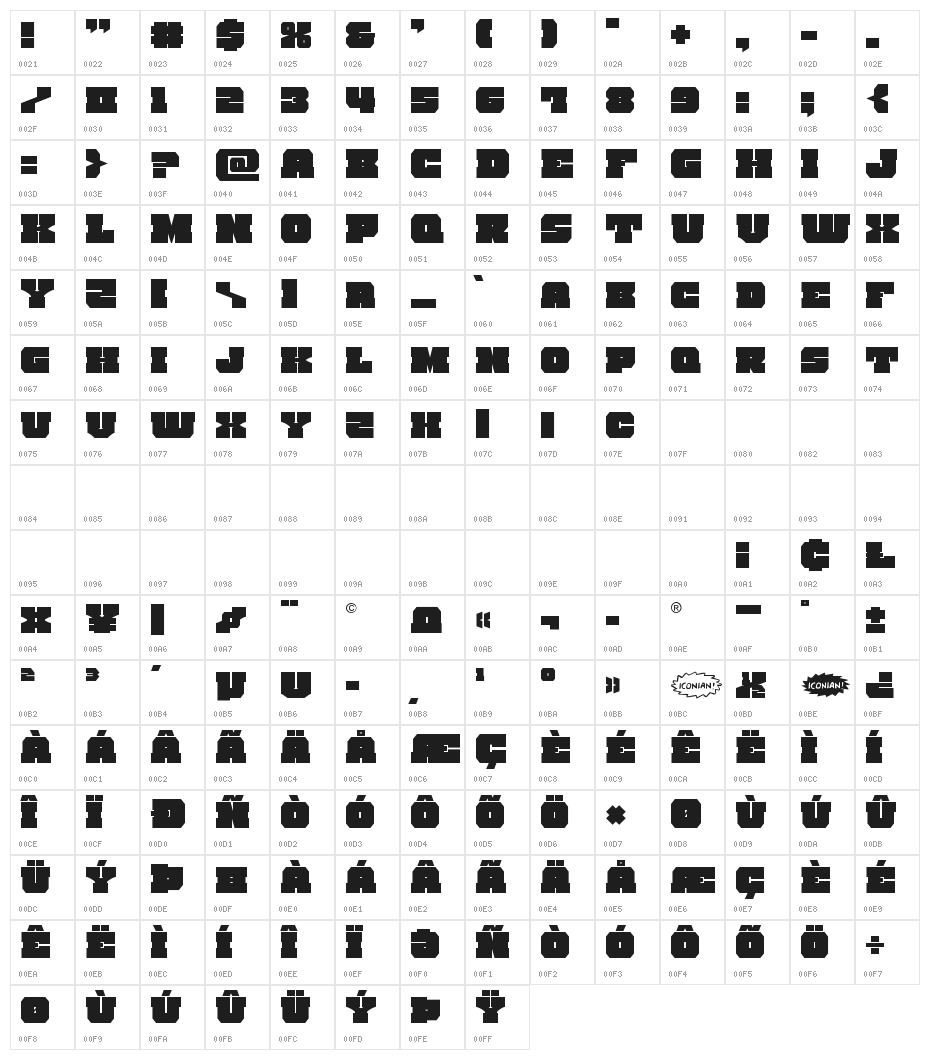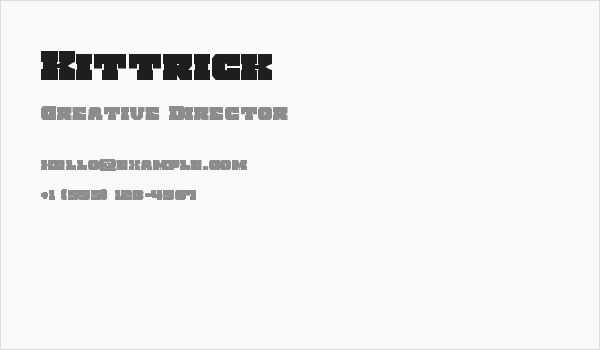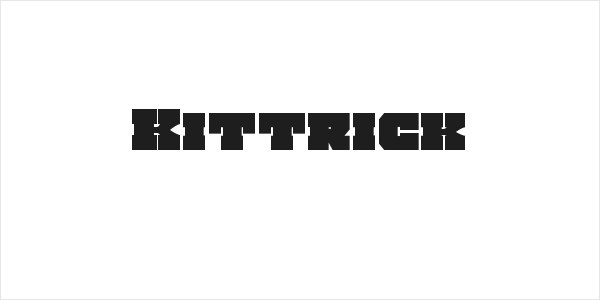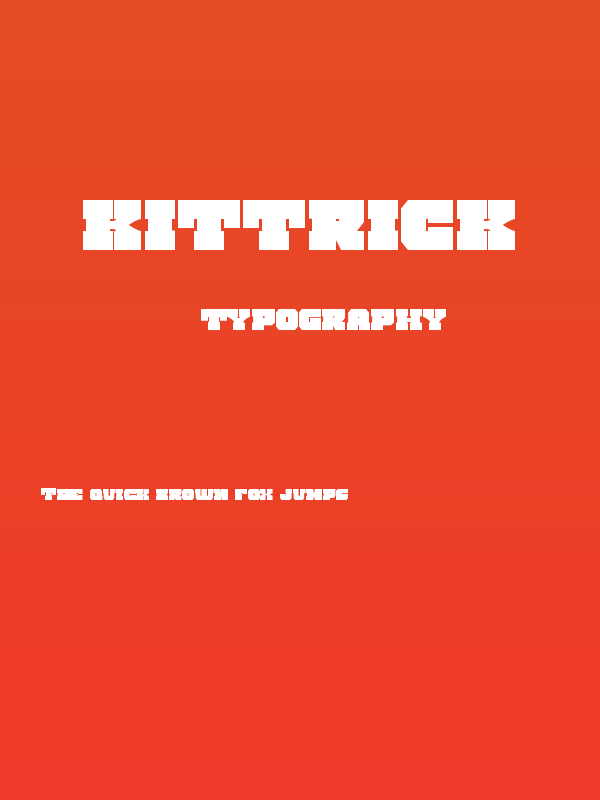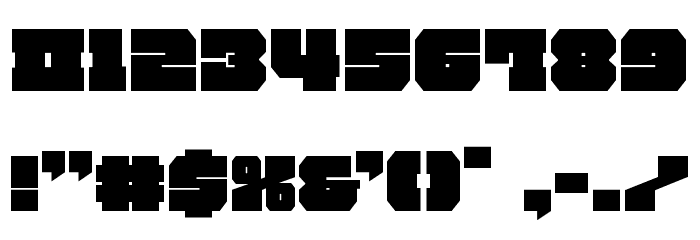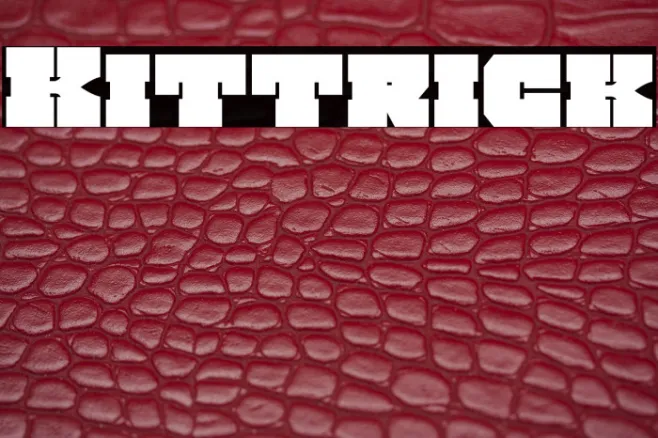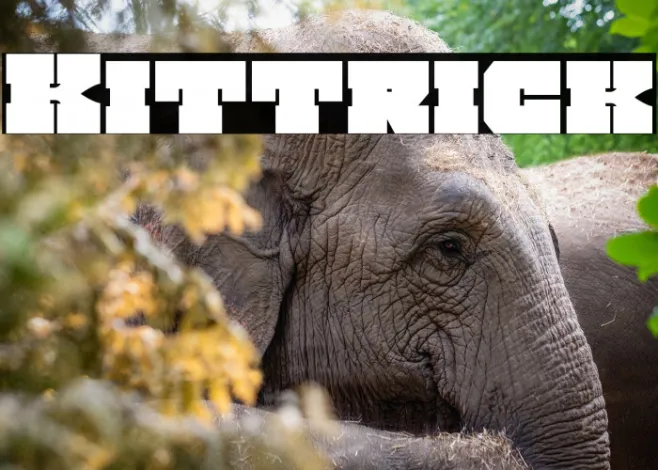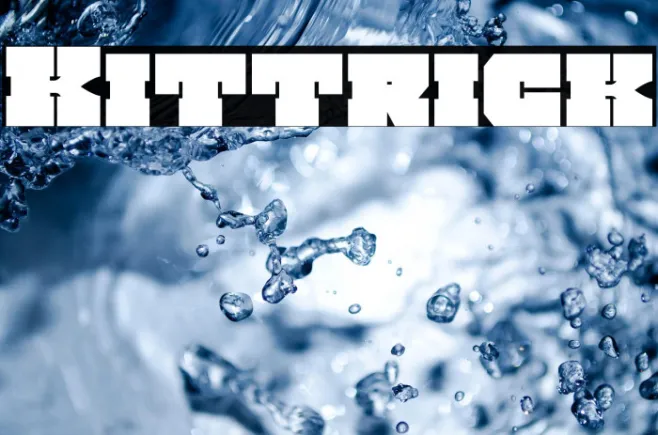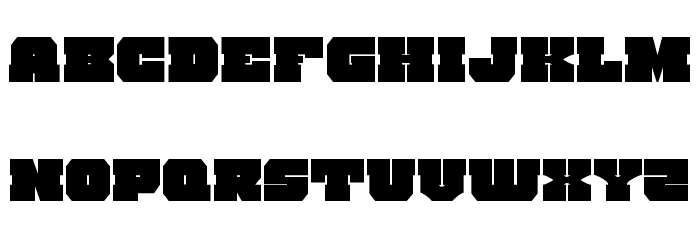
Kittrick Font
Kittrick Description
This font features a bold, geometric design with strong, block-like characters. The uppercase letters are uniform in height and width, creating a cohesive and impactful appearance. The lowercase letters maintain the same boldness, ensuring consistency across all text. Numbers and special characters are designed to match the robust style, making them stand out prominently. The font's thick strokes and angular edges give it a modern, industrial feel, suitable for projects that require a strong visual presence.
| Proposed Projects | Ideal for posters, headlines, branding, and any design that requires a strong, impactful typeface. |